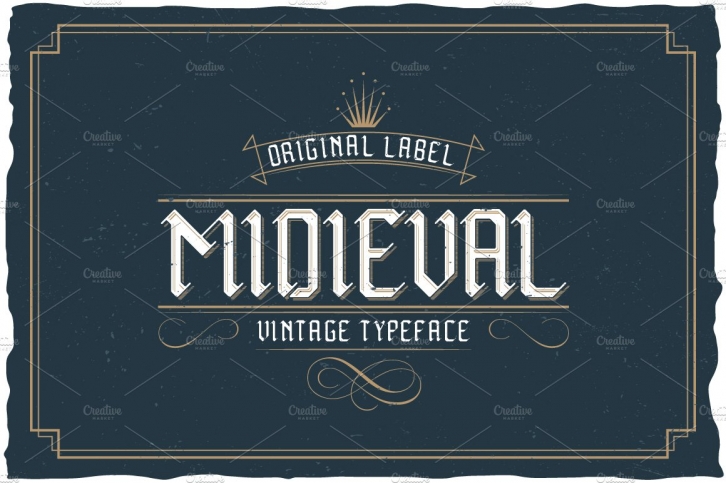
Here is a classic look label typeface named "Midieval". It's made in vintage label style. Font is perfect for any labels design.
- 6 styles of font, named Midieval Aged, Midieval Regular, Midieval ShadowFX, Midieval TextureAndShadow, Midieval TextureAndShadowFX, Midieval TextureFX.
- You can mix these styles how do you like. Because in complect are included additional fonts - Midieval ShadowFX, Midieval TextureAndShadowFX, Midieval TextureFX. For example: type your phrase in Regular, copy and past at same position and change font to Shadow FX. Copy and paste at the same position and change font to Texture FX. You will get Midieval font with shadow and texture effect! And you can change color of each element!